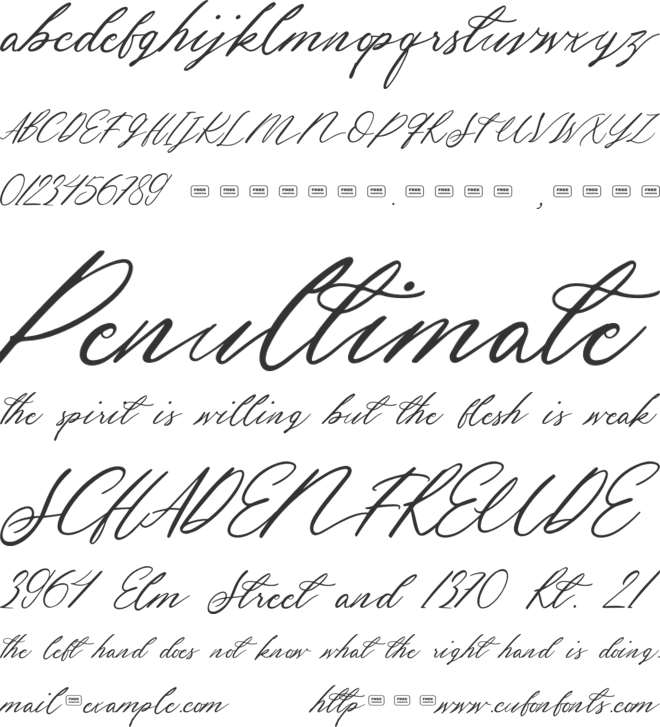
Hey Jane Free Trial Font
Hey Jane is a beautiful handwritten typeface. It has a natural writing style with a great readability.It’s perfect for adding a natural touch to your beautiful and luxurious designs.Full Version Download Here :https://typefactory.co/product/hey-jane-lovely-script-font/https://www.creativefabrica.com/product/hey-jane/ref/501262/